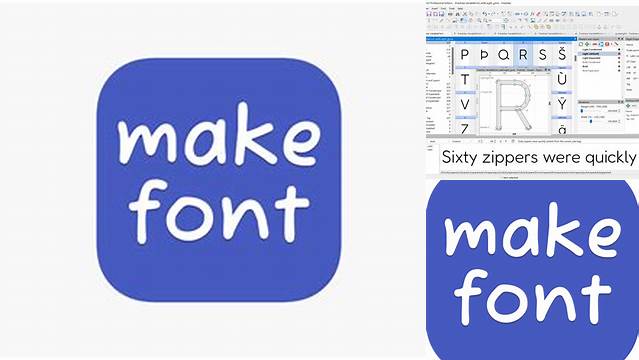
Best Free Font Maker App: Design Unique Fonts Easily
Creating your own fonts might sound like a complex and daunting task, but with the advent of best free font maker apps, it's now more accessible than ever! Whether you're a seasoned designer or just someone who loves to tinker with typography, these apps offer a fantastic way to express your creativity and add a personal touch to your projects. In this comprehensive guide, we'll dive deep into the world of font creation, exploring the best free font maker apps available, their features, and how you can use them to craft stunning typefaces.
1. Understanding the Basics of Font Design
Before we jump into the apps themselves, let's cover some foundational concepts of font design. This will help you better understand the tools and techniques involved in creating your own fonts. Font design involves a lot more than just drawing letters. It's about creating a cohesive and visually appealing system of characters that work together harmoniously. The best free font maker apps provide the platform, but understanding the principles will elevate your font design skills.
Key Elements of Typography
- Character Set: A complete font includes uppercase and lowercase letters, numerals, punctuation marks, and special characters. Think about the full range of characters your font will need to support. Do you need accented characters for multiple languages? What about symbols for specific uses?
- Glyphs: Each individual character in a font is called a glyph. Designing each glyph involves careful attention to its shape, weight, and spacing. The best free font maker apps allow you to meticulously craft each glyph to your exact specifications.
- Kerning: Kerning refers to the spacing between individual letter pairs. Adjusting kerning is crucial for achieving a balanced and readable appearance. For example, the space between a 'V' and an 'A' often needs to be smaller than the space between two straight letters like 'H' and 'I'.
- Tracking: Tracking is the overall spacing between all characters in a line of text. Adjusting tracking can affect the readability and visual density of your text. The best free font maker apps offer precise controls for tracking adjustments.
- Leading: Leading (pronounced "ledding") is the vertical space between lines of text. Proper leading enhances readability and prevents lines from appearing too cramped or too far apart.
- Baseline: The baseline is the imaginary line on which the majority of characters sit. Consistent baseline alignment is essential for a professional-looking font. The best free font maker apps provide visual aids to ensure accurate baseline alignment.
2. Top Free Font Maker Apps for Beginners
If you're just starting out in the world of font design, several best free font maker apps offer user-friendly interfaces and a gentle learning curve. These apps provide the fundamental tools you need to create your first fonts without feeling overwhelmed. Let's explore some of the top contenders for beginners:
2.1. FontStruct
FontStruct is a web-based font editor that stands out for its unique modular approach to font design. Instead of drawing freeform shapes, you construct glyphs using geometric shapes, which FontStruct calls “bricks.” This constraint might seem limiting at first, but it actually encourages creativity and helps you produce consistent and visually interesting fonts. FontStruct is one of the best free font maker apps for exploring geometric font styles.
- Key Features:
- Brick-based design system
- Live preview of your font
- Extensive online community for sharing and inspiration
- Download fonts in TTF format
FontStruct is an excellent choice if you're interested in creating pixel fonts, geometric fonts, or fonts with a distinct visual style. Its modular design system makes it easy to iterate and experiment with different shapes and patterns. The supportive online community provides a wealth of inspiration and feedback.
2.2. BirdFont
BirdFont is a free and open-source font editor that offers a more traditional drawing-based approach to font design. It allows you to draw glyphs using curves and lines, giving you greater flexibility in shaping your characters. BirdFont is a robust and feature-rich option among the best free font maker apps.
- Key Features:
- Bezier curve drawing tools
- Support for OpenType features
- Import and export in various font formats
- Cross-platform compatibility (Windows, macOS, Linux)
BirdFont is a powerful tool for creating a wide range of font styles, from elegant serifs to modern sans-serifs. Its support for OpenType features allows you to add advanced typographic effects to your fonts, such as ligatures and alternate glyphs. The cross-platform compatibility makes it accessible to users on different operating systems.
2.3. FontForge
FontForge is another free and open-source font editor that's been around for many years. It's a highly capable tool with a steep learning curve, but it offers a wealth of features for experienced font designers. FontForge is often considered one of the most powerful best free font maker apps available.
19. Integrating Your Fonts into Design Software